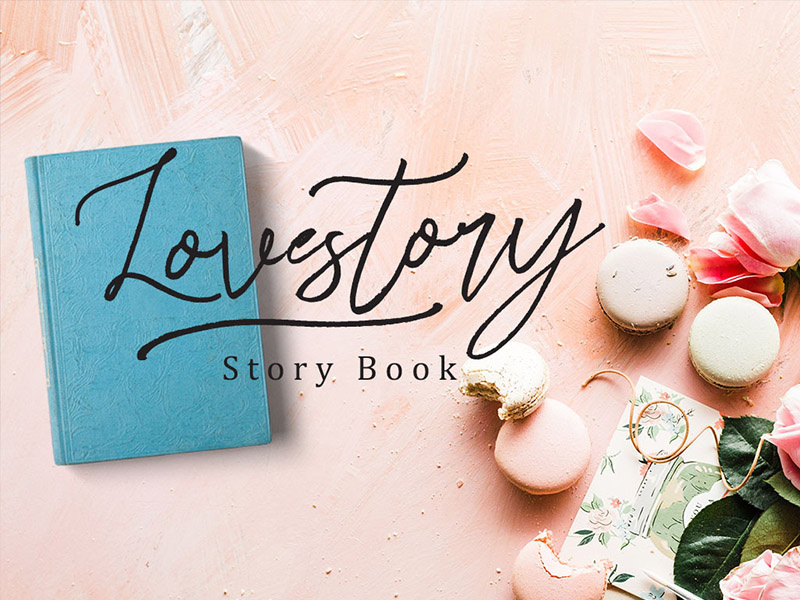
Love Story style font
Introducing my new font Rafailla is another elegant modern calligraphy typefaces, which is combining the style of brush calligraphy with an modern style and sophisticated flows. So beautiful on invitation like greeting cards, branding materials, wedding designs, social media posts, advertisements & product designs.
"Rafailla" includes full set of lovely uppercase and lowercase letters, multilingual symbols, numerals, punctuation and ligatures.
Extras Swash